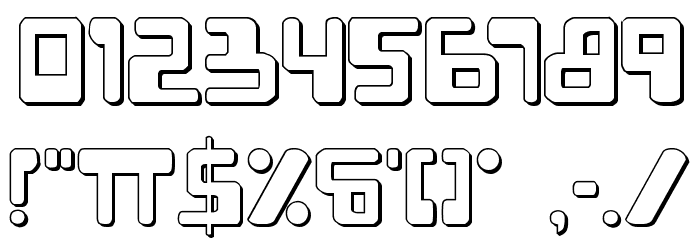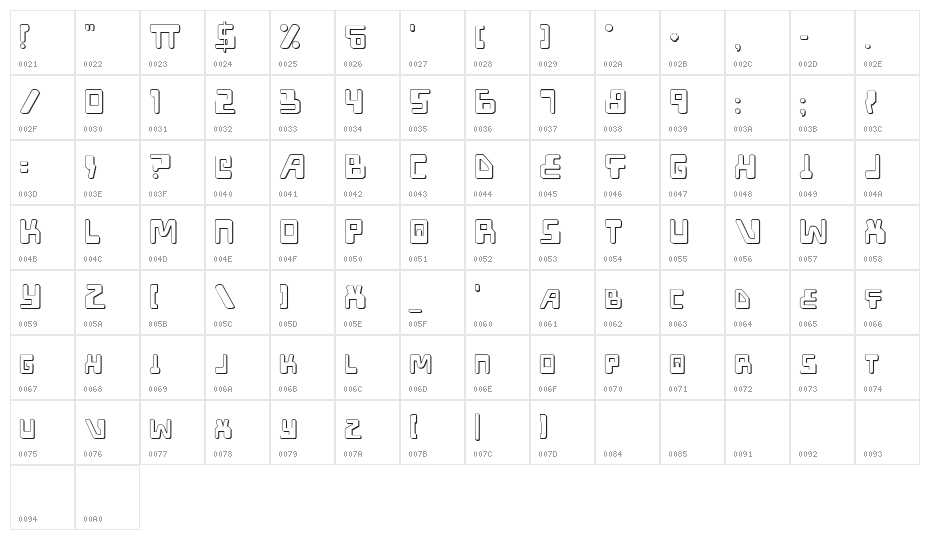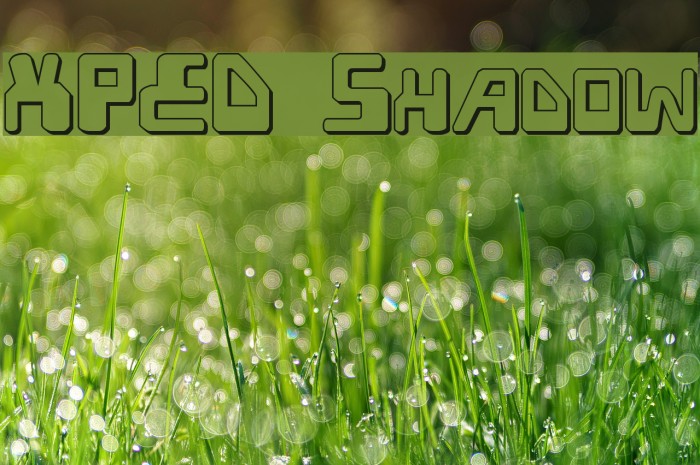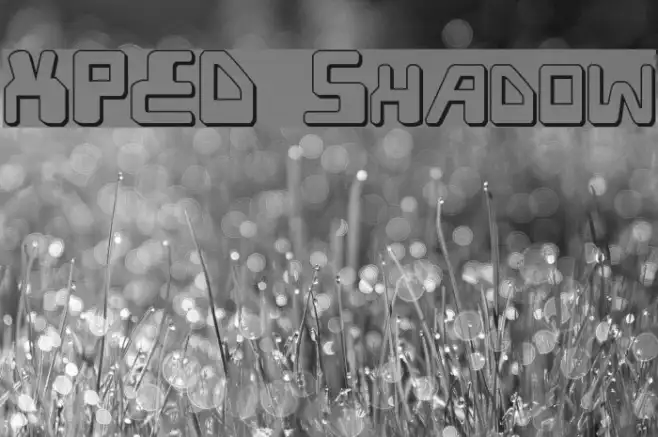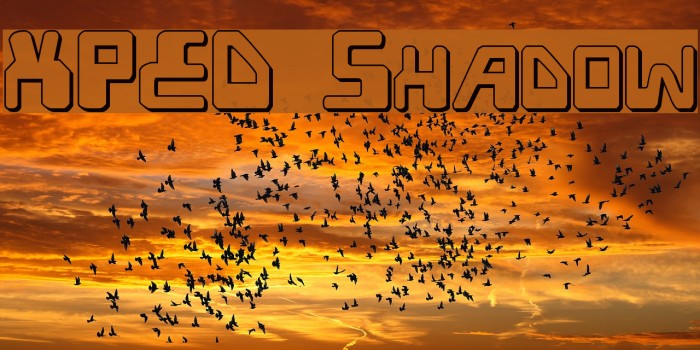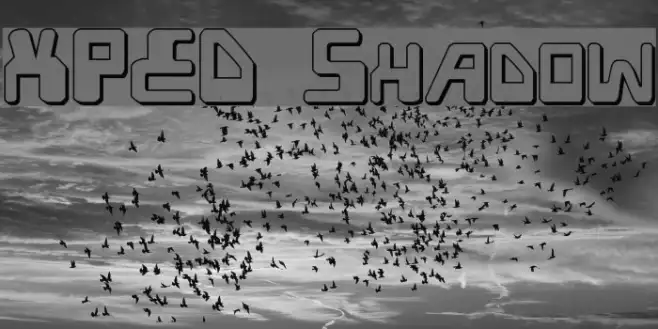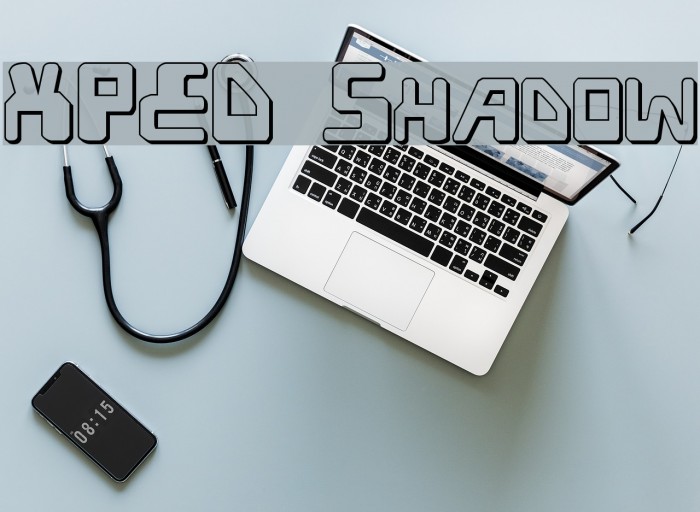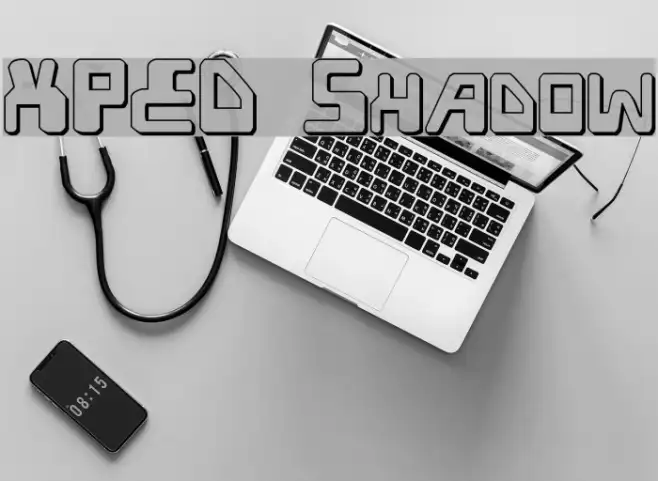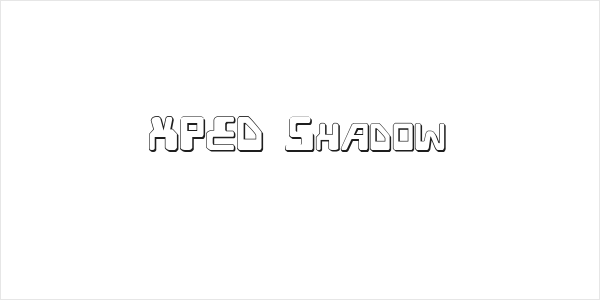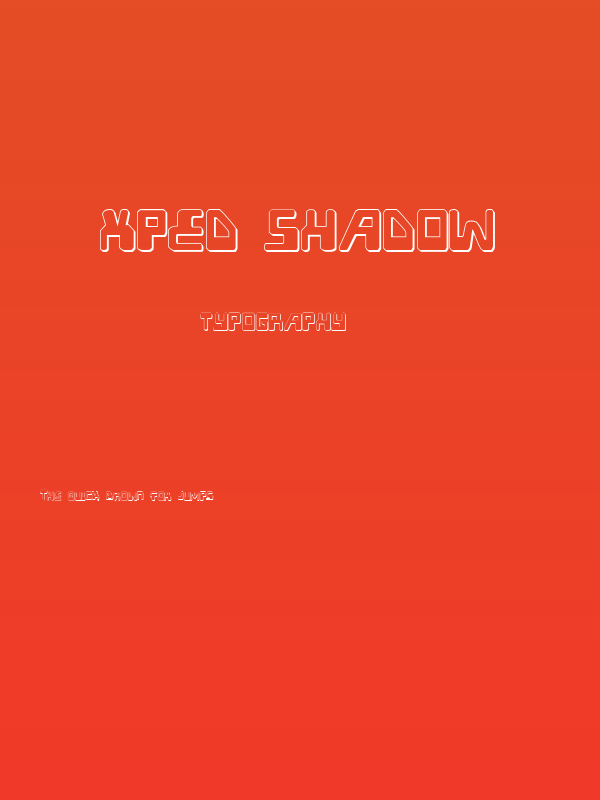
XPED Shadow Font
XPED Shadow Description
This font features a bold, geometric design with a distinct shadow effect that gives it a three-dimensional appearance. The characters are outlined, creating a hollow look that enhances its modern and futuristic style. Each letter and number is crafted with sharp angles and clean lines, contributing to its structured and technical aesthetic. The font maintains a consistent weight throughout, ensuring uniformity and balance. Its unique style makes it stand out, ideal for projects that require a strong visual impact.
| Proposed Projects | Ideal for technology branding, video game titles, futuristic posters, and digital media. |